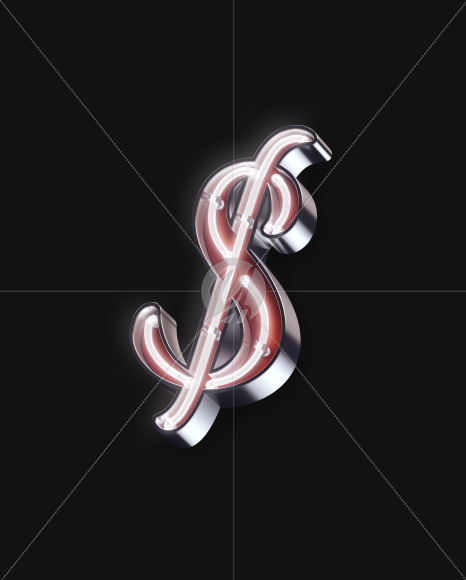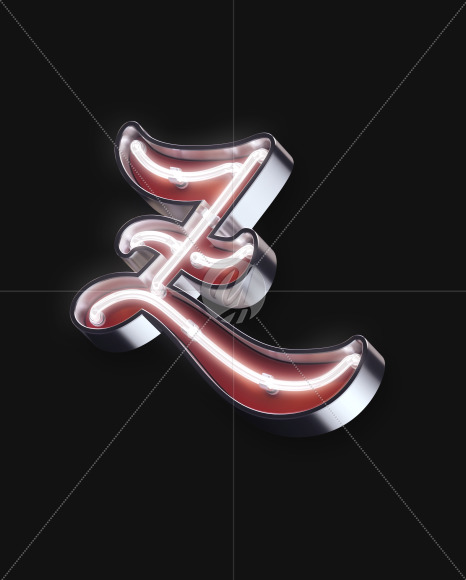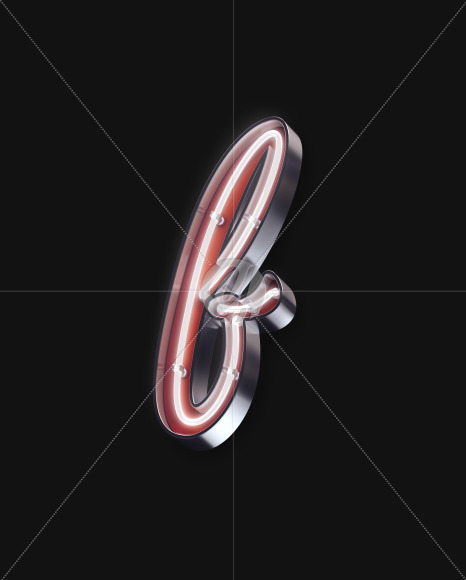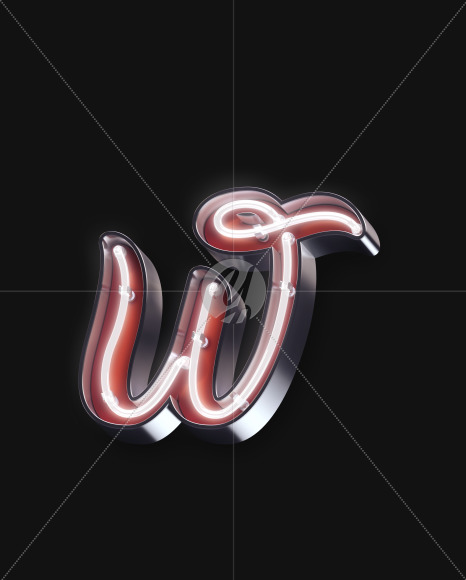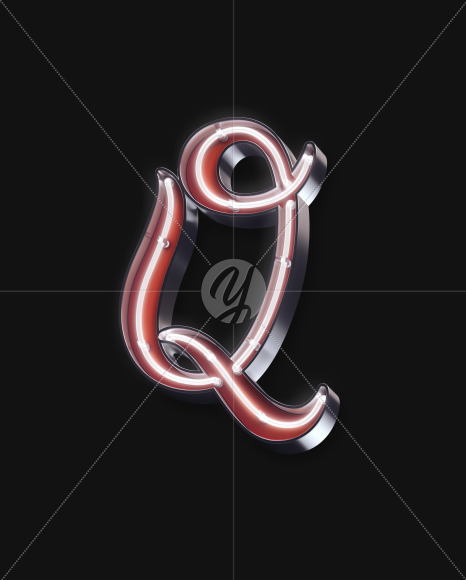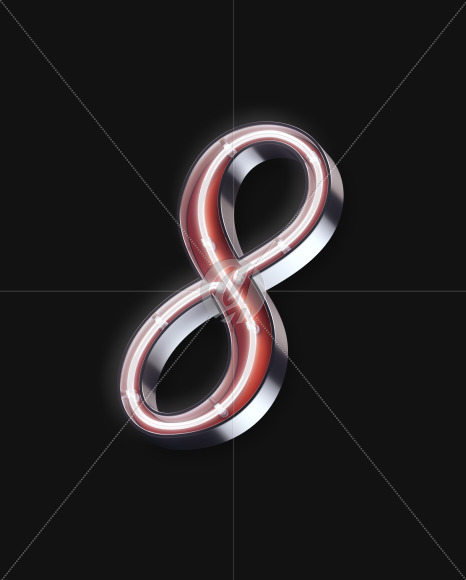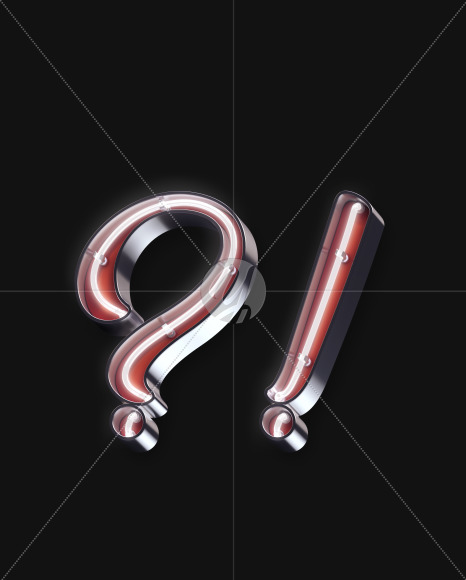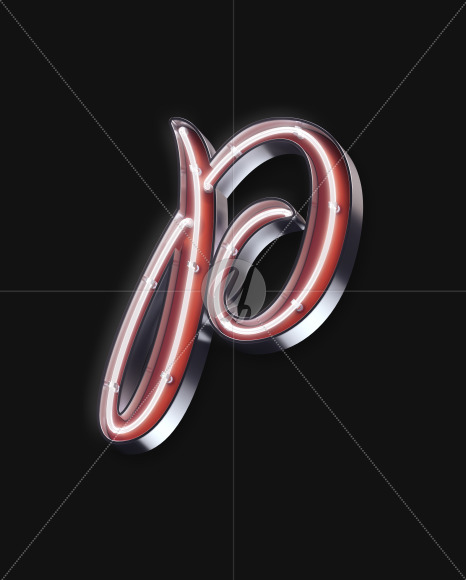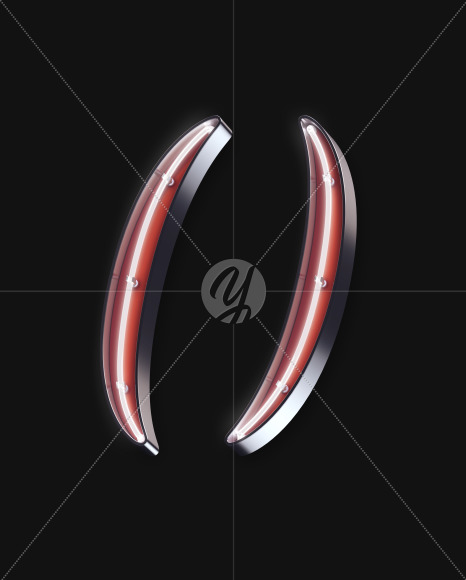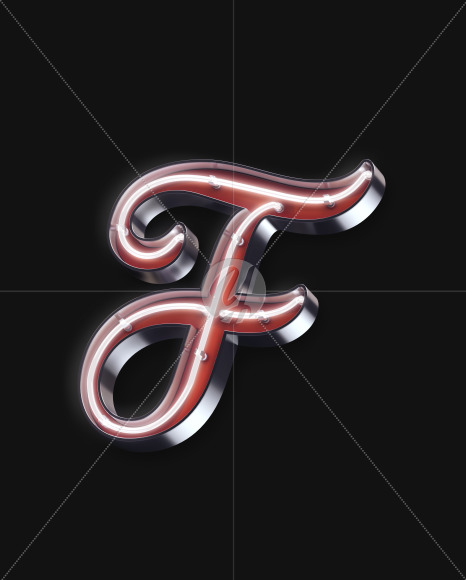
Hi! Introducing a high quality font set named Bright calligraphy. It’s a 3d rendered letters that immitates a street signboard that shines bright in the dark. It consists of 81 letters and punctuation symbols with transparent background. Each file has resolution 4000×4000 pixels.